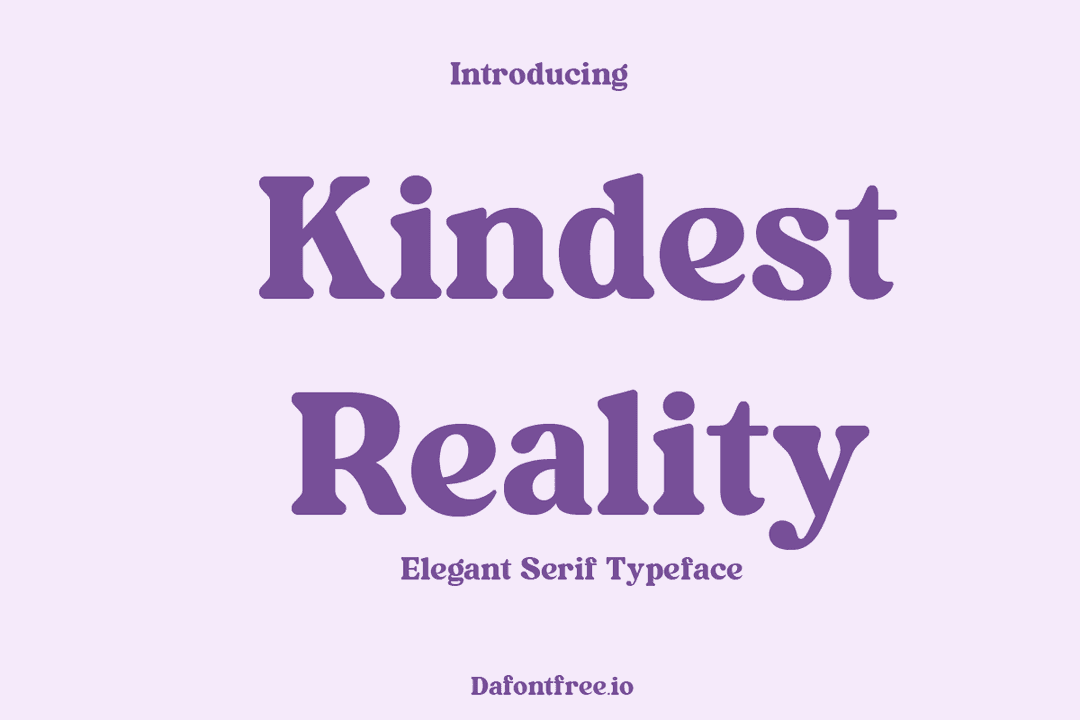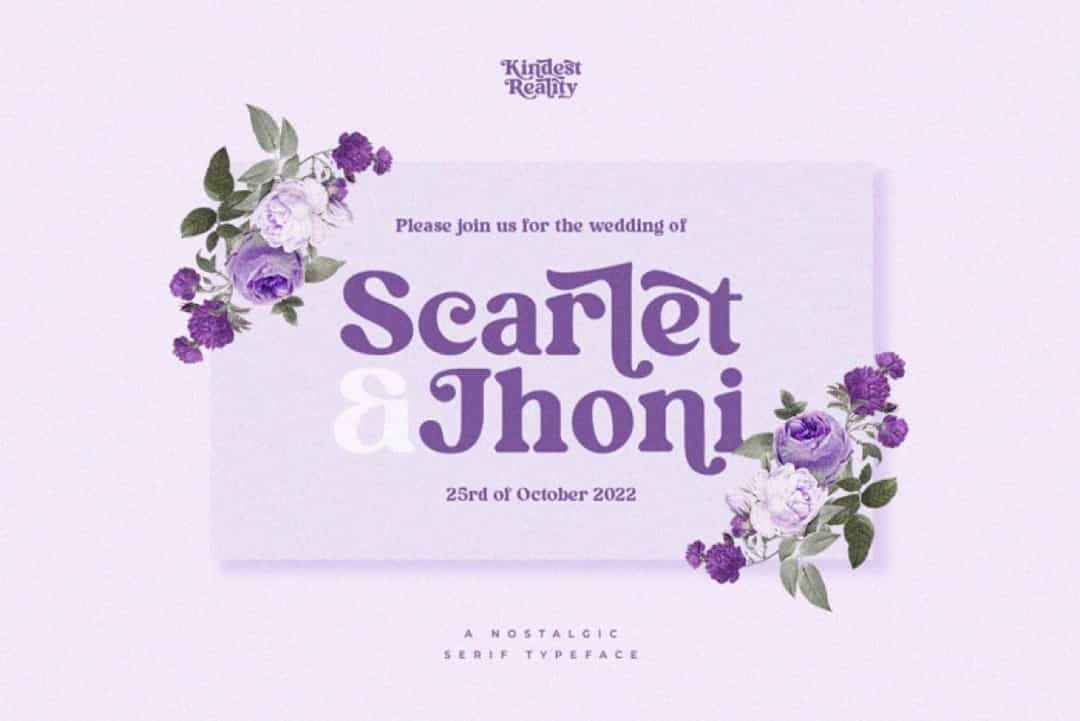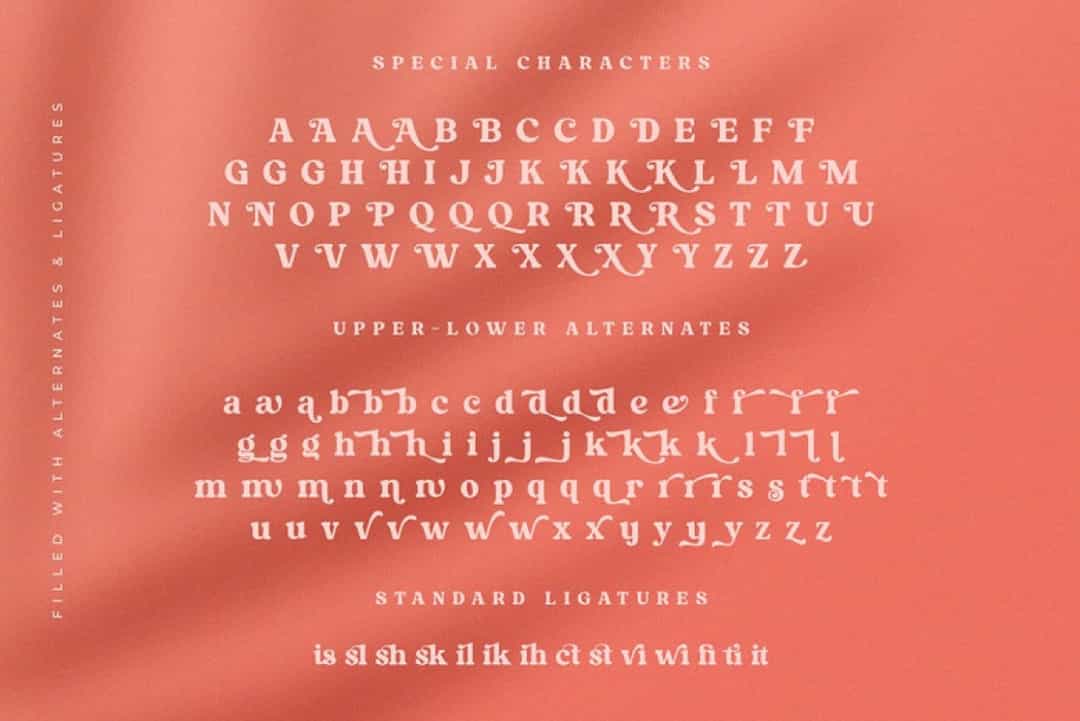
Kindest Reality is an old-fashioned Serif font designed to evoke elegance and curvaceous character, making it perfect for logos, branding projects, design work, clothing branding packaging for products Magazine headers or as an eye-catching text overlay on photos.